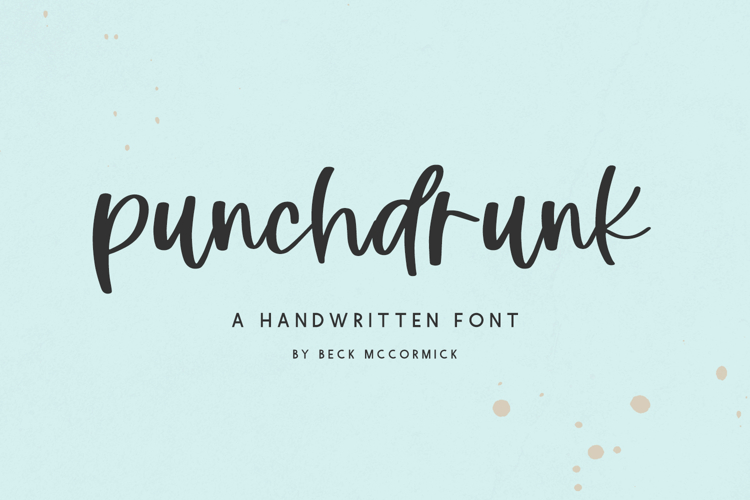
Punchdrunk Script Font
Introducing Punchdrunk, a quirky modern font. Punchdrunk is a cute & legible handlettered font that features ligatures to customize the look of your text!
Punchdrunk is best for:
- feminine, crafty projects with your Cricut or Silhouette machine, or your SVG design business
- wedding invitations, wedding favors, or wedding decor
- farmhouse decor and crafts
- digital planners & apps like Goodnotes
- website design + website accents, blog design
- feminine graphic tee shirt design & other apparel
- 14 ligatures: bb, cc, dd, ee, ff, gg, ll, mm, nn, oo, pp, rr, ss, tt